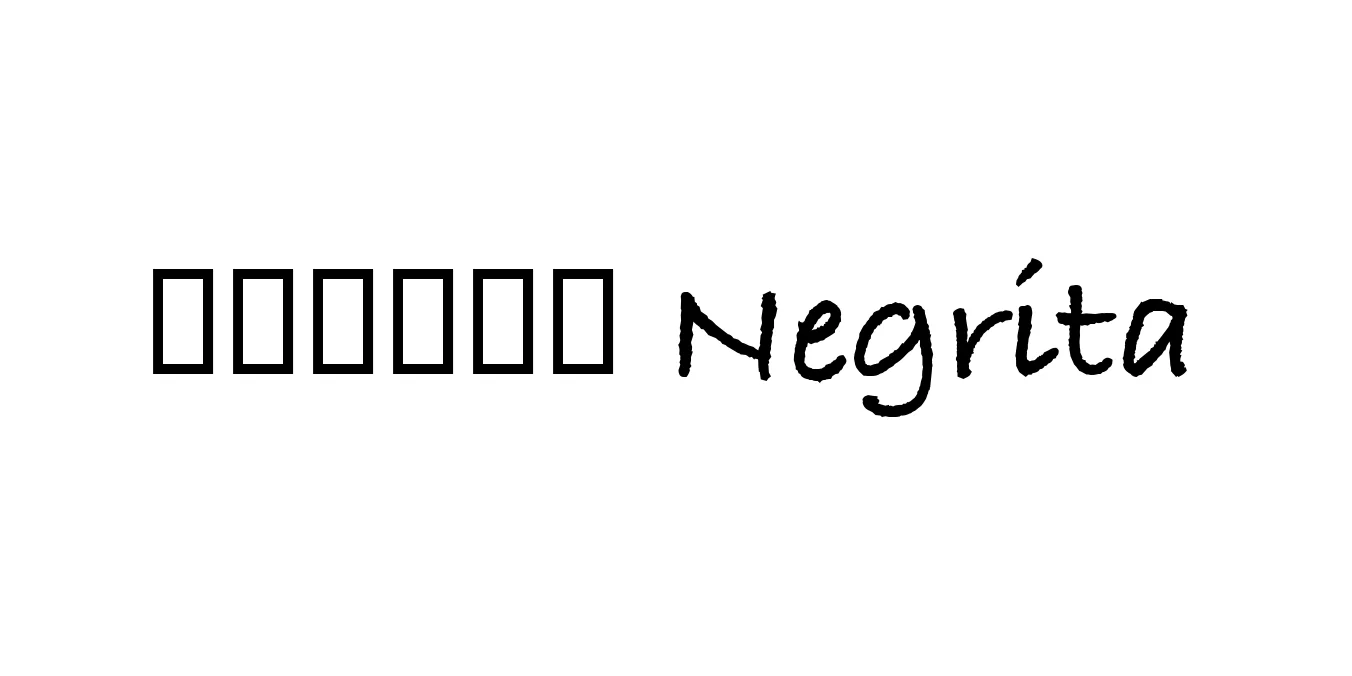
䉲慤汥礠䡡湤 Negrita
Designed by Richard Bradley
Bradley Hand Negrita is a distinctive handwriting typeface designed by Richard Bradley. Released in the mid-1990s through the International Typeface Corporation (ITC), it was crafted to capture the essence of natural, fluid penmanship. The 'Negrita' or bold variant provides an enhanced stroke weight that increases visibility and impact while retaining the informal, accessible character of the original script.
The font is widely recognized for its authentic feel, avoiding the mechanical look of many digital scripts. Its organic letterforms and subtle irregularities make it a popular choice for personal correspondence, creative layouts, and branding projects that require a human touch. Over the years, it has become a staple in many operating systems, cementing its place as a classic choice for casual digital communication.
Excellent for signatures and personal logos that require a human touch.
Adds a casual, handcrafted feel to party invites and greeting cards.
Ideal for quote graphics and informal story overlays.
Works well for pull-quotes or sidebars in lifestyle magazines.